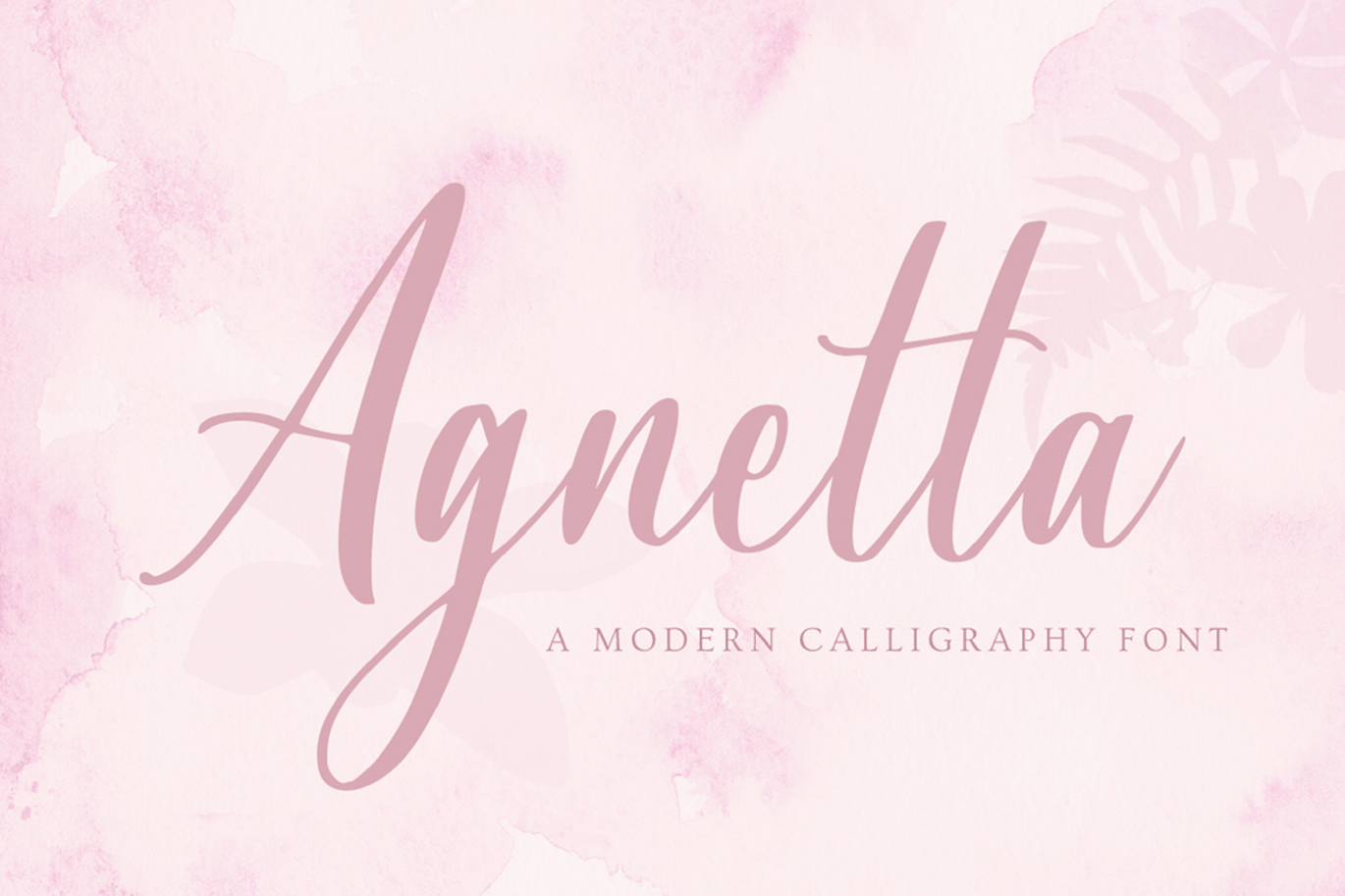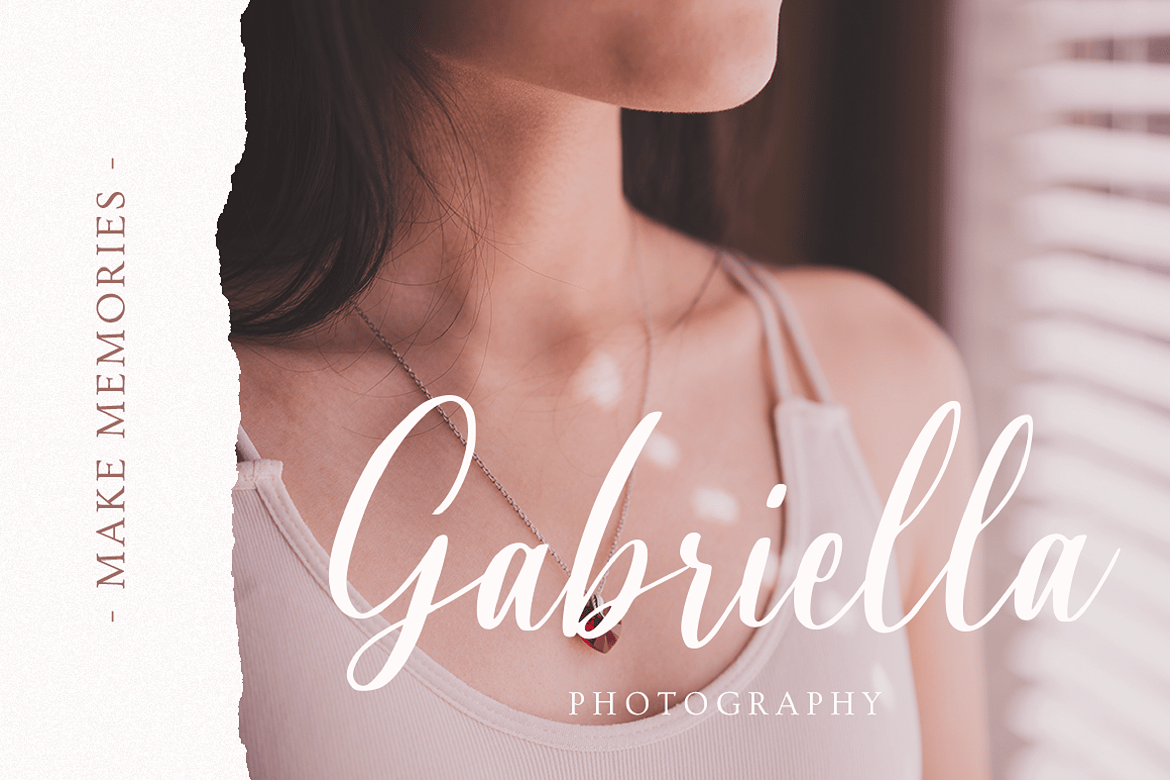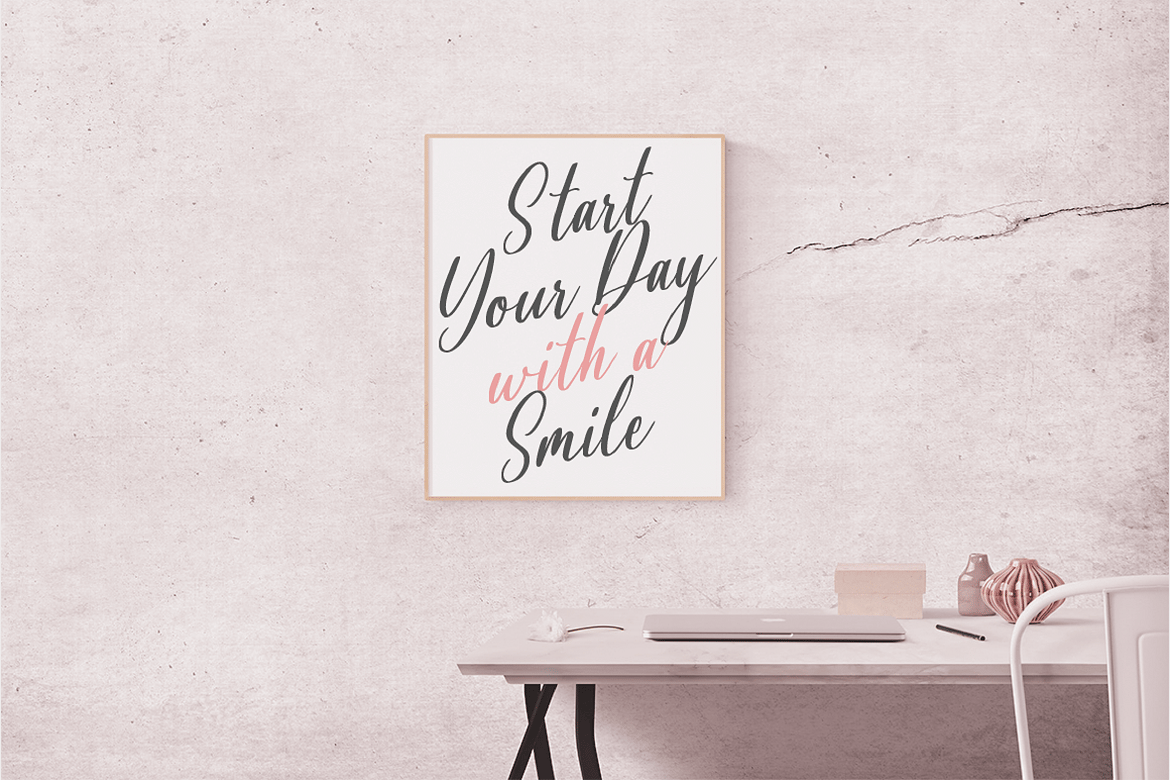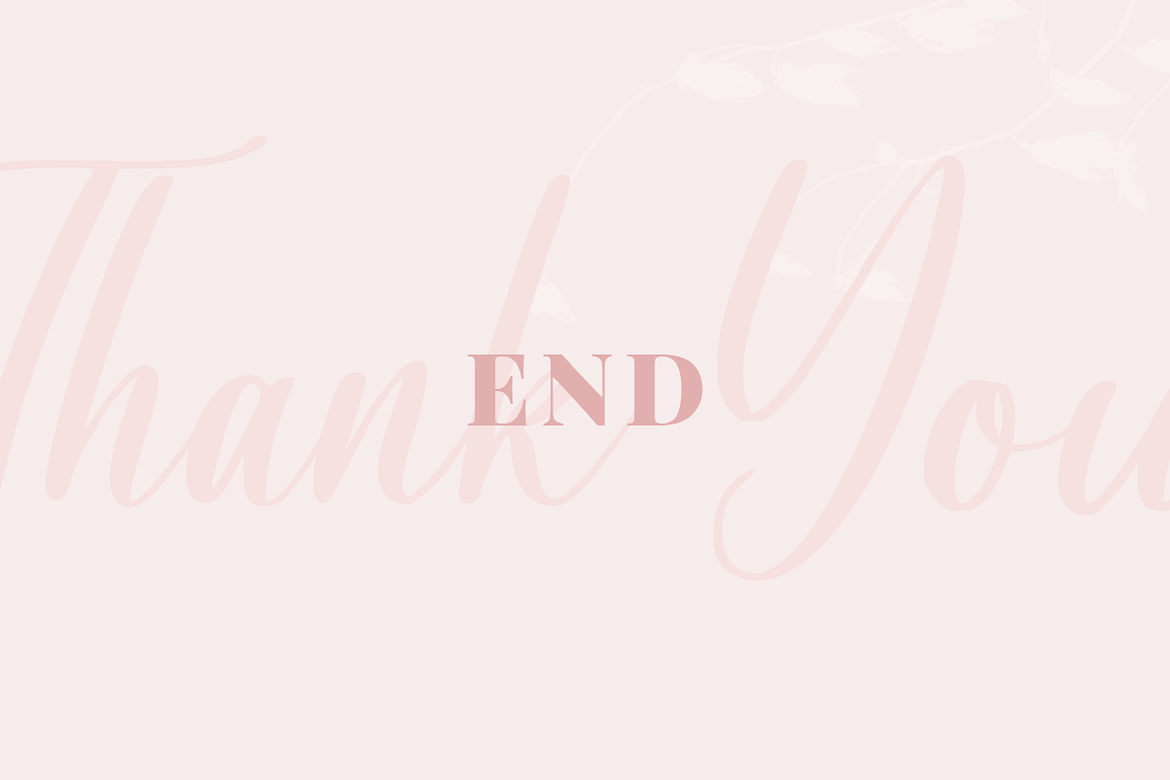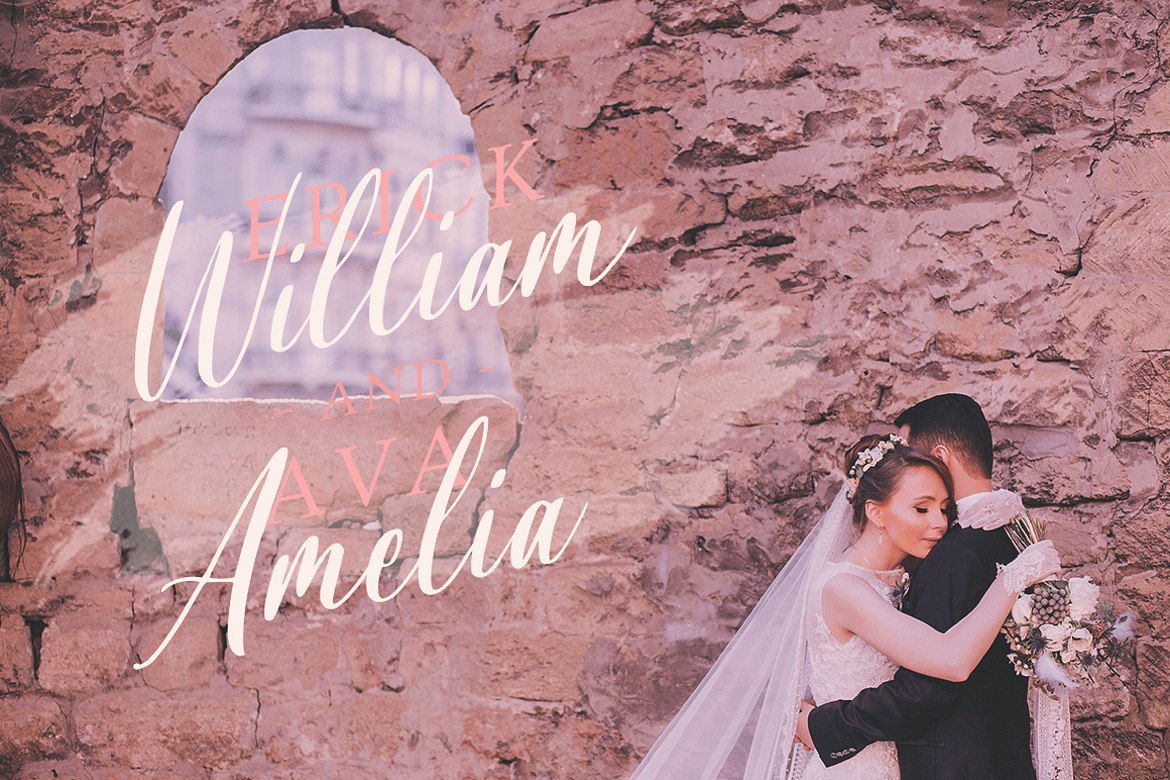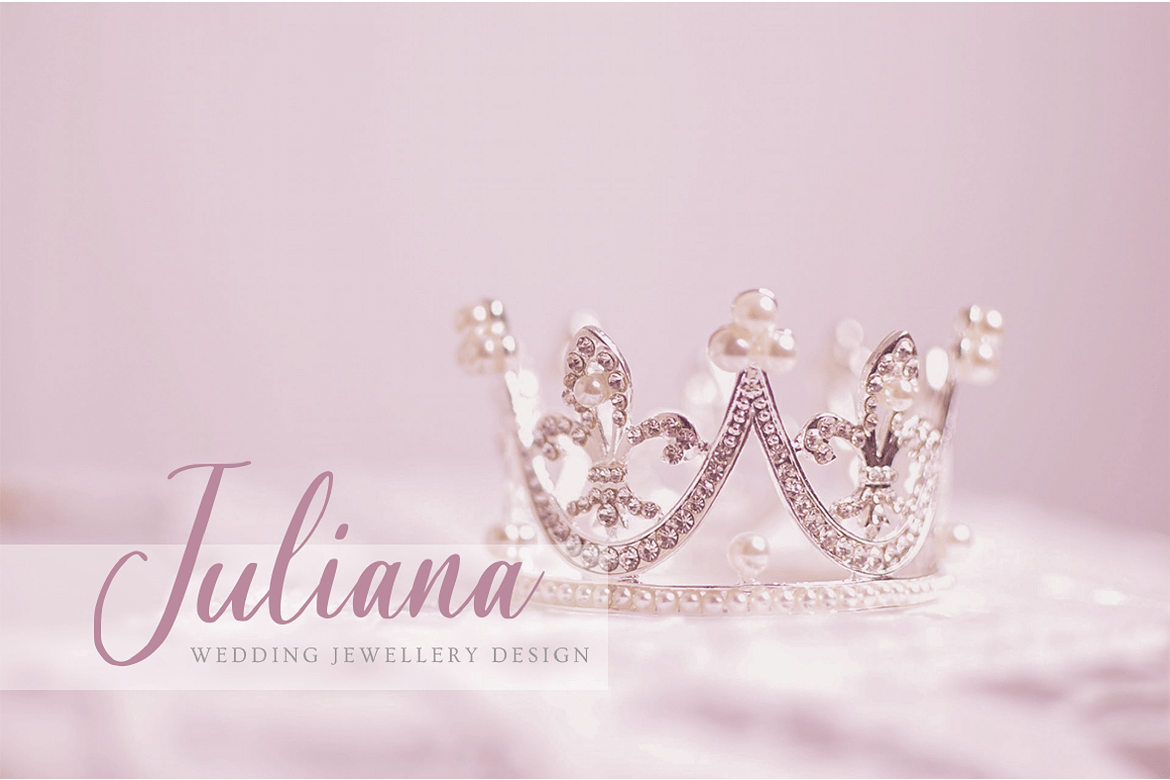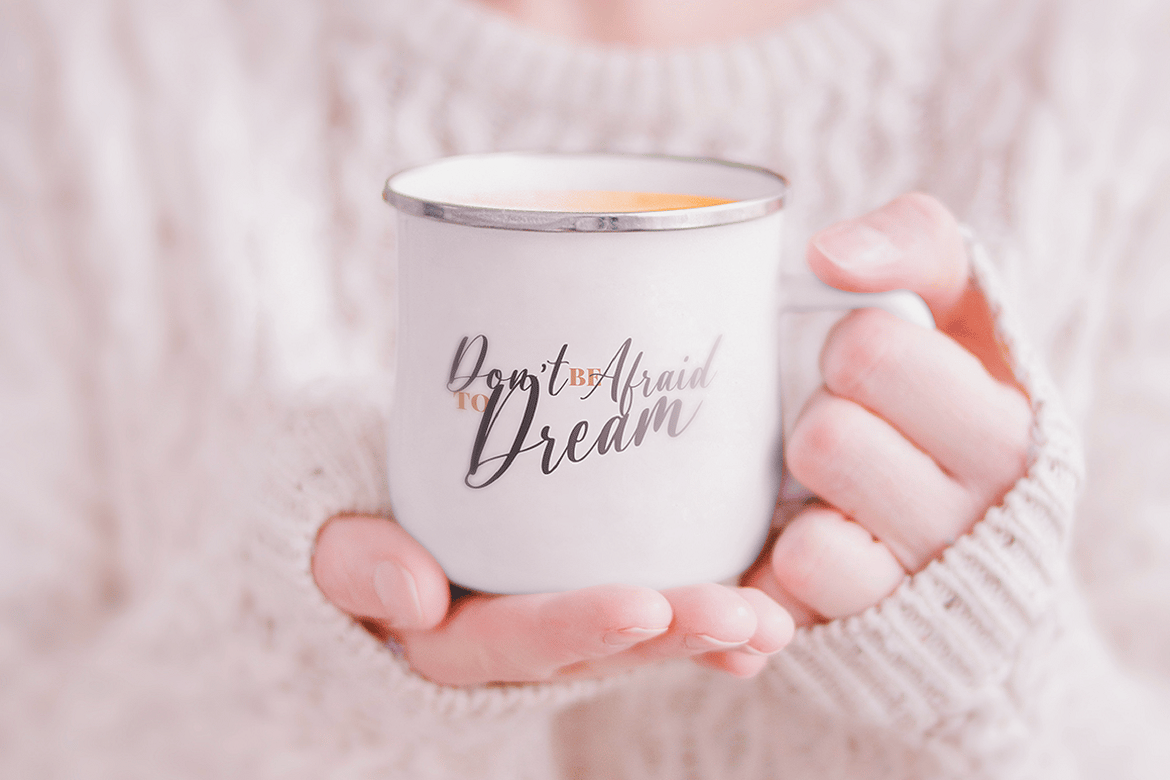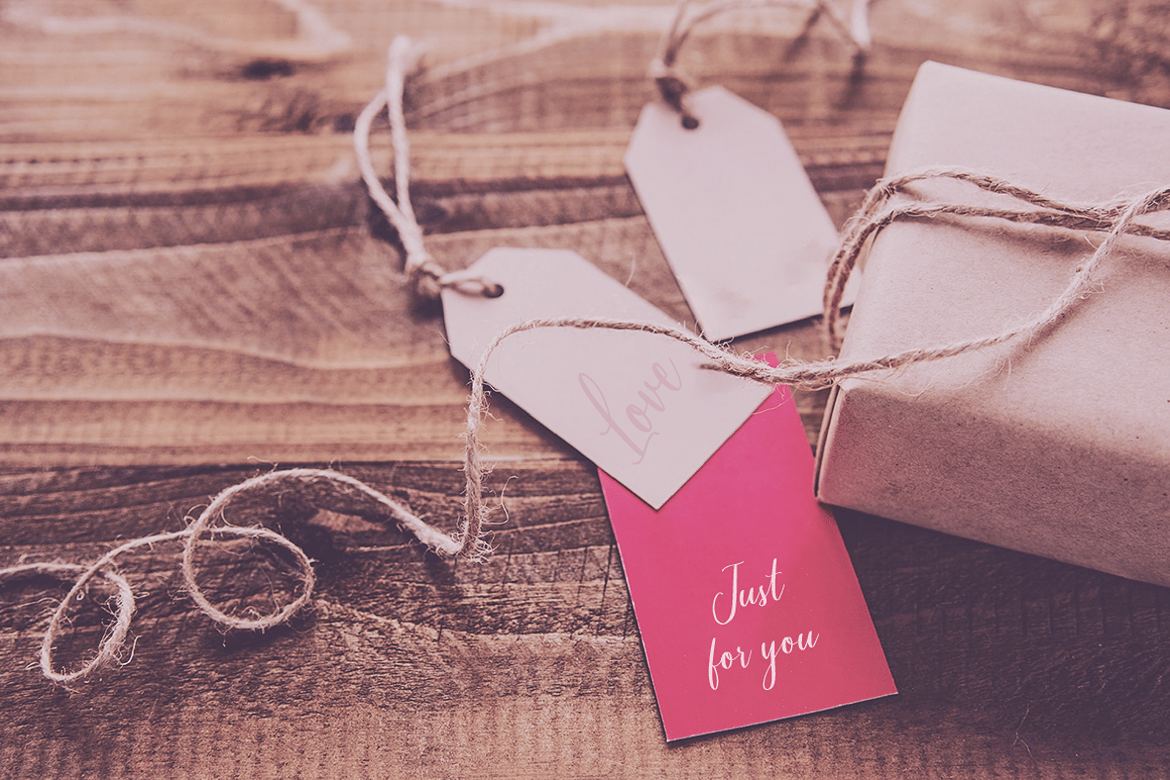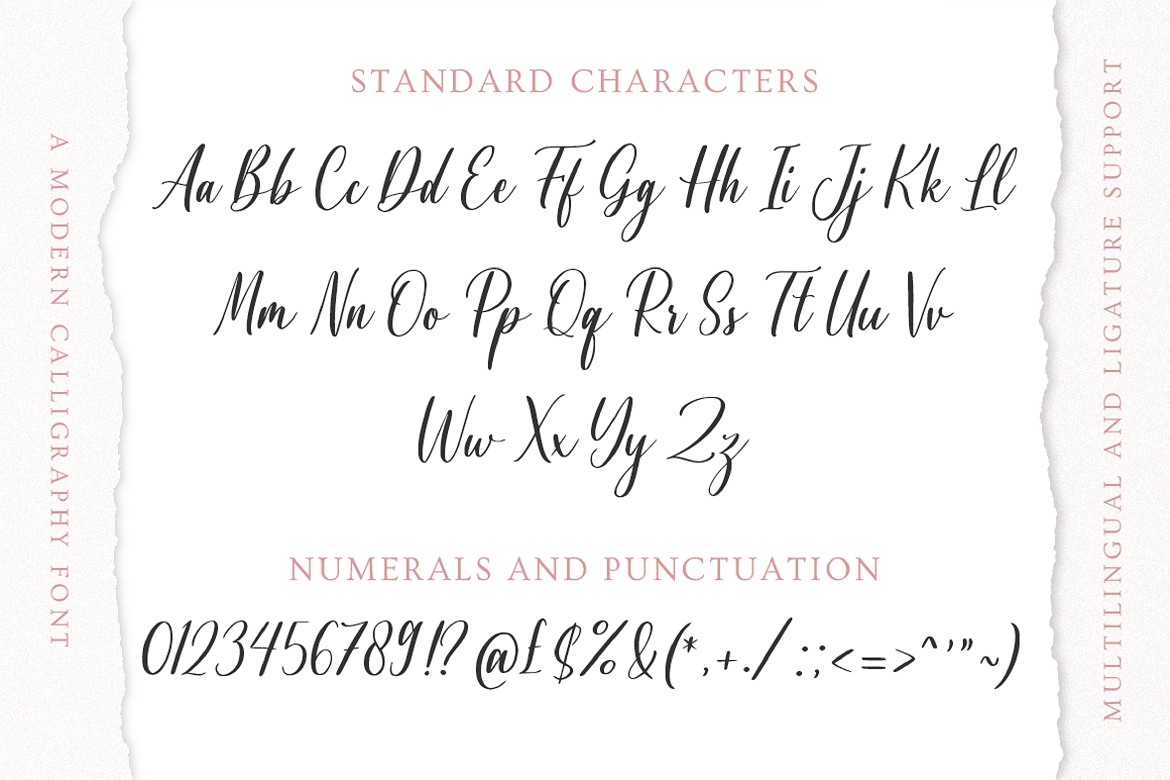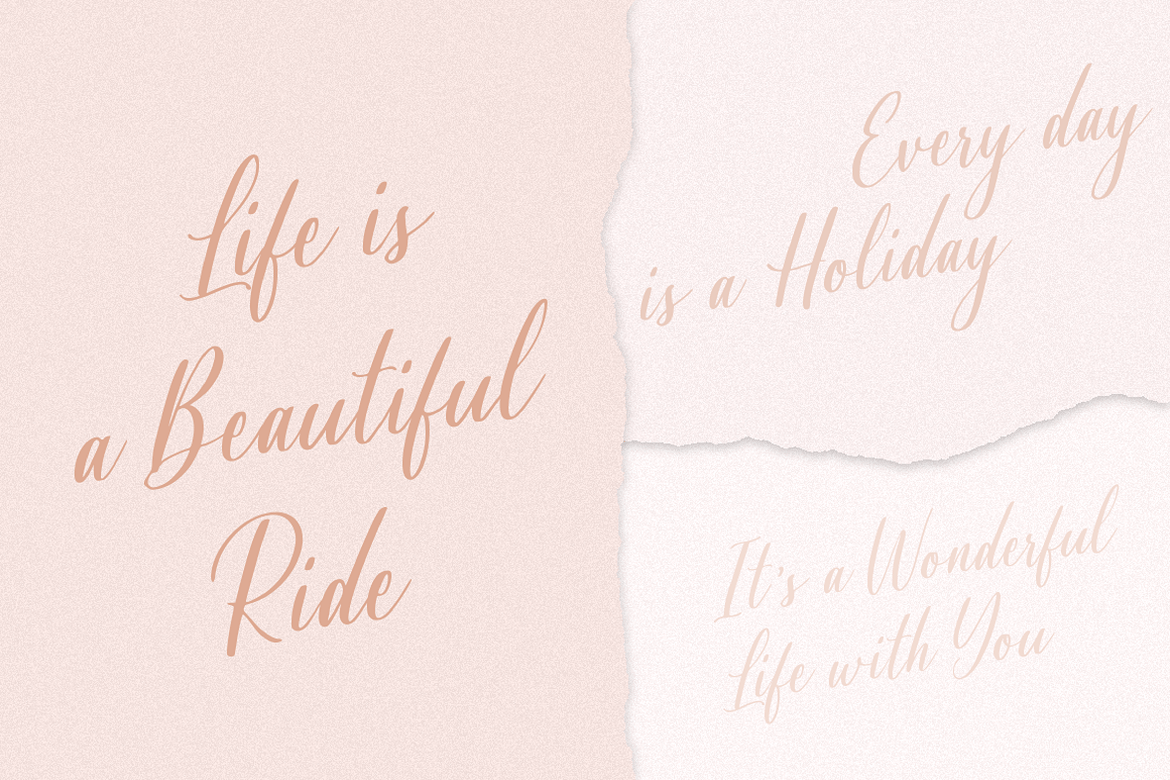
Agnetta
Introducing Agnetta– A Modern Calligraphy Font.
Agnetta is a gorgeous Modern Calligraphy Font that will whisk you away to a place of elegance, modernity, and style! Think garden parties in the Summer or a high-tea with women dressed in pastels, drinking mountain Oolong from delicate porcelain.
Bring your branding to life and add a touch of elegant sparkle with Agnetta. Use it for headings, logos, business cards, printed quotes, invitations of all sorts, cards, packaging, and your website or social media branding.
- Multilingual & Ligature Support
- Full sets of Punctuation and Numerals